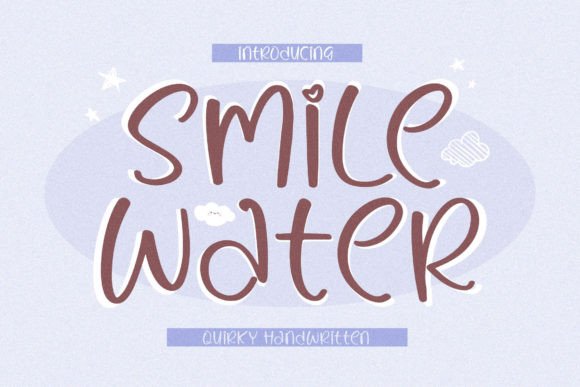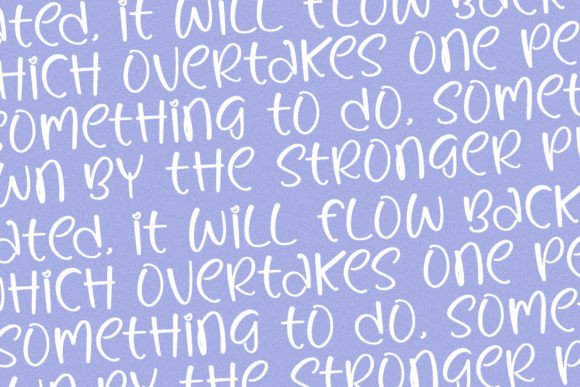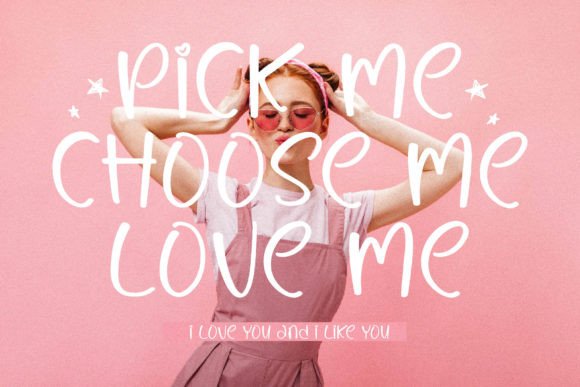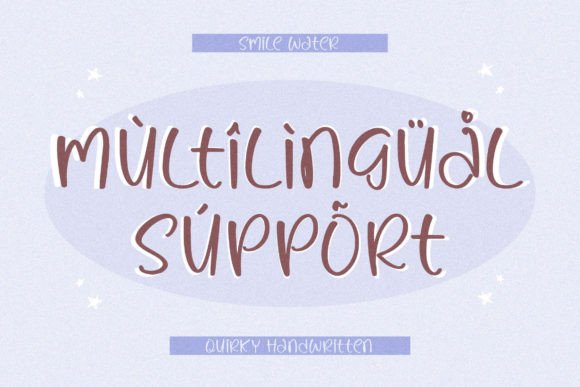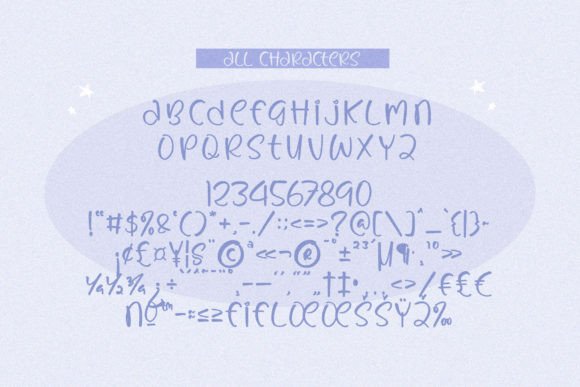
Add Quirky Charm with Smile Water Font
Smile Water Font is a quirky handwritten typeface designed to add playful charm and personality to your creative projects. Its lively and unique style makes it ideal for a wide range of design applications. Whether you are working on logos, branding, homeware designs, product packaging, mugs, quotes, posters, or invitations, Smile Water Font adds a fresh and vibrant touch.
The font’s distinctive strokes give your work a handcrafted feel that captures attention and enhances your designs.
Versatile Uses for Smile Water Font
Smile WaterFont is perfect for many types of projects, including:
Logos and brand identities
Branding and marketing materials
Homeware and product packaging designs
Mugs and merchandise
Posters, flyers, and promotional graphics
Shopping bags and labels
Book covers and stationery
Greeting cards, invitations, and name cards
Photography watermarks and special events
Thanks to its quirky handwritten style, Smile WaterFont adds warmth and originality to all your creative ideas.
It features balanced kerning and clear spacing, ensuring your text is readable and visually appealing across different sizes and platforms.
Why Designers Choose Smile Water Font
Designers and creatives love Smile WaterFont for its quirky and playful character. It adds a unique and engaging touch that enhances any project. Whether you’re a professional or a hobbyist, Smile WaterFont helps you create beautiful, lively, and memorable typography.
Use Smile WaterFont to bring fun and originality to your next creative project.